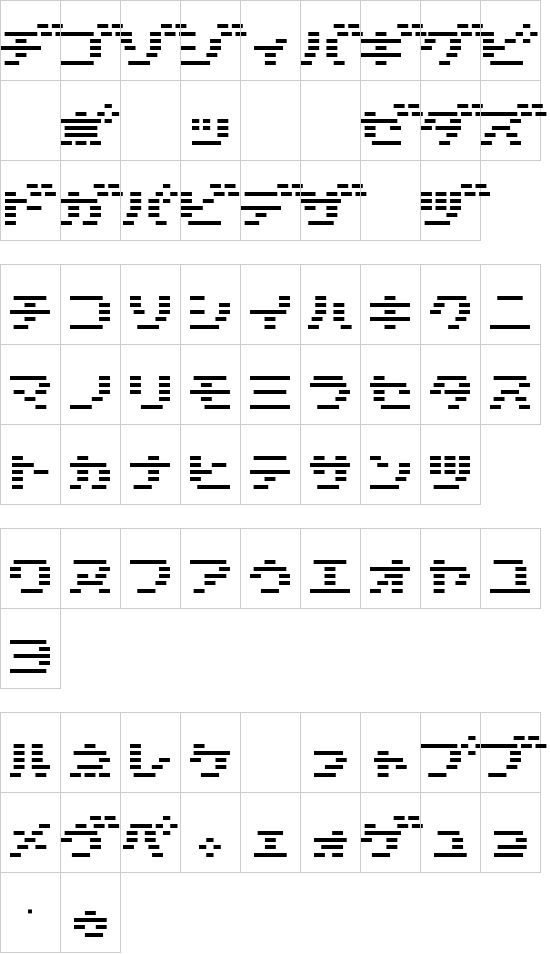
D3 Digibitmapism Katakana
About D3 Digibitmapism Katakana
D3 Digibitmapism Katakana is a Japanese katakana pixel font with blocky, grid-built characters and a retro-game feel. The katakana is rendered in low-resolution square units, giving it the same nostalgic screen texture as old console and arcade displays.
It suits anime graphics, Japanese gaming art, pixel posters, and designs that want a digital katakana style. D3 Digibitmapism Katakana is free to download as a TrueType file, and the on-page preview lets you set your own katakana text in the style so you can see how its pixel forms read at display size before downloading it.